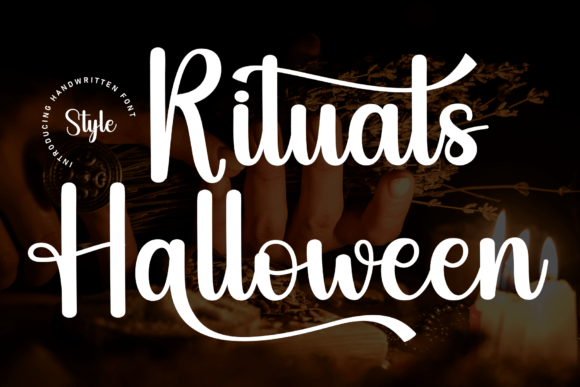
Unleash the enchanting allure of nature's embrace with Rituals Halloween Font, a captivating script that transports you to a realm of whimsical wonder. This enchanting font family embodies the essence of the natural world, inviting you to immerse yourself in its captivating charm.
Crafted with meticulous attention to detail, Rituals Halloween exudes a sweet and friendly aura, making it the perfect choice for adding a touch of playful elegance to your creative projects. Picture the delicate strokes of a calligraphy pen, dancing across the page, leaving a trail of enchanting characters that seem to come alive with each letter.
Indulge in the versatility of Rituals Halloween, a font that seamlessly adapts to a myriad of design aesthetics, from the whimsical and playful to the elegant and sophisticated. Let your imagination soar as you explore the boundless possibilities, transforming your words into breathtaking works of art. Whether crafting wedding invitations, greeting cards, or embarking on enchanting design journeys, Rituals Halloween stands as your trusted companion, guiding you towards creative triumphs.
Immerse yourself in the magic of nature-inspired typography, where the gentle whisper of leaves and the soft caress of petals find their voice through Rituals Halloween. Embrace the beauty of the untamed wilderness, the tranquility of serene landscapes, and the vibrant hues of blooming flowers, all captured within the curves and strokes of this captivating font.
As you weave your words together, infused with the essence of Rituals Halloween, feel the power of nature coursing through your veins, igniting your imagination and inspiring you to create masterpieces that resonate with the soul. Let the world bear witness to the transformative power of nature's artistry, expressed through the captivating allure of Rituals Halloween.